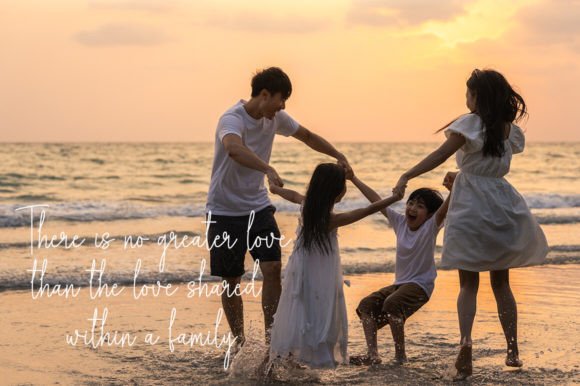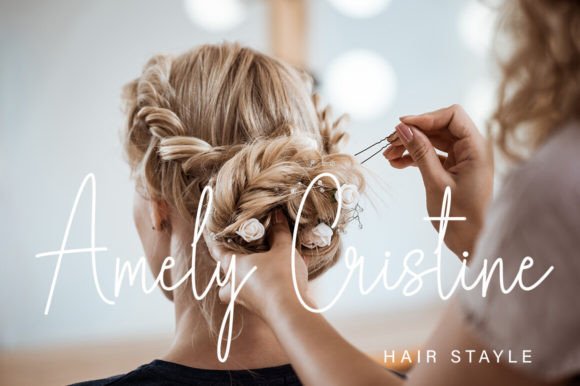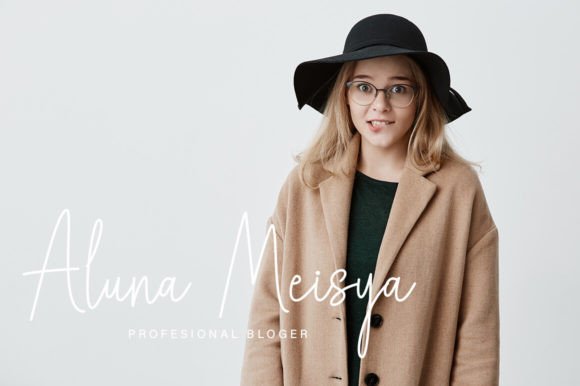
Introduction to Romantic Sweety Font
Have you ever been working on a creative project and felt like something was missing? You’ve got a clear vision, but the design just doesn’t seem to be coming together? That’s where the perfect font can make all the difference. For designers, the right font can elevate a project from good to great, and that’s exactly what the Romantic Sweety Font can do.
This modern and monoline script font is a true gem, offering a level of detail and sophistication that’s hard to find. With its PUA encoding, you’ll have access to all the glyphs and swashes you need to take your design to the next level. Whether you’re working on a free download project or a high-end design, the Romantic Sweety Font is a valuable resource that’s sure to impress.
Key Features of Romantic Sweety Font
- High-quality design resource ideal for creative projects, including wedding invitations, greeting cards, and other romantic designs.
- Comes with a transparent background, allowing for seamless integration with any design or image.
- Features a unique, cursive script style with a touch of elegance, perfect for adding a romantic touch to any design.
- Designed at a high resolution (300 DPI) for optimal print quality and legibility.
Honest Review: Romantic Sweety Font
I recently came across the Romantic Sweety Font and was excited to try it out for a design project. As a designer, I’m always on the lookout for unique and high-quality fonts that can elevate my creative work. Here’s my honest review of this font.
- ✨ The font has a beautiful, cursive design that’s perfect for romantic and whimsical projects.
- ✨ It’s available in a transparent background version, which is a great feature for designers who want to add some extra flair to their designs.
- ⚠️ The font may not be suitable for formal or business-related projects, as it has a more playful and whimsical feel.
- ⚠️ Some users may find the font a bit too ornate or over-the-top, which could be a limitation for certain design projects.
Overall, I think the Romantic Sweety Font is a great addition to any designer’s toolkit. While it may not be perfect for every project, it’s a high-quality font that’s sure to add some extra romance and whimsy to your designs.
The Romantic Sweety Font is perfect for creating romantic invitations, wedding stationery, and other creative projects that require a touch of elegance and sophistication. You can also use the font to add a personal touch to your social media graphics, blog posts, and marketing materials.